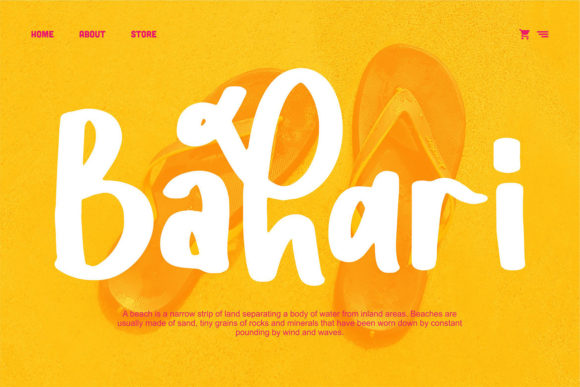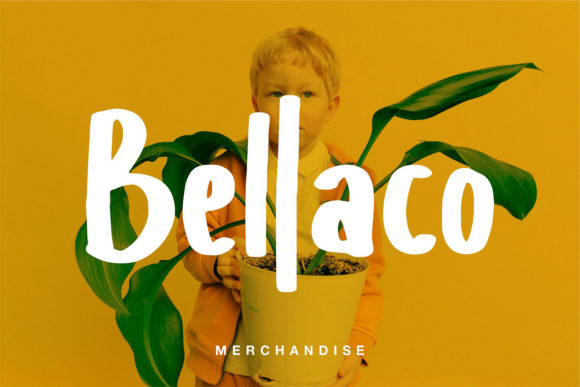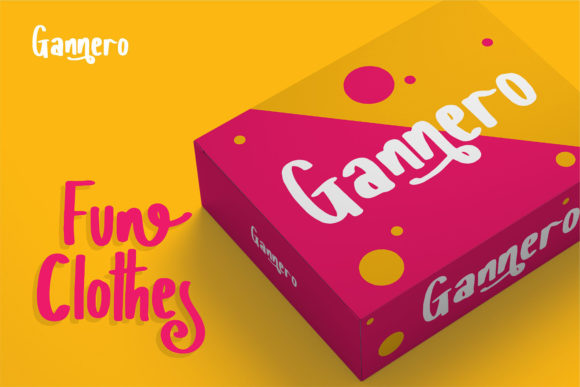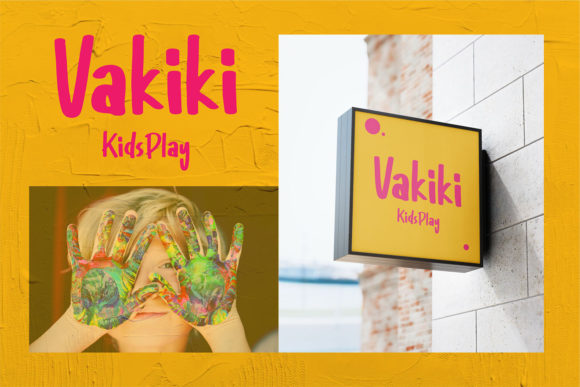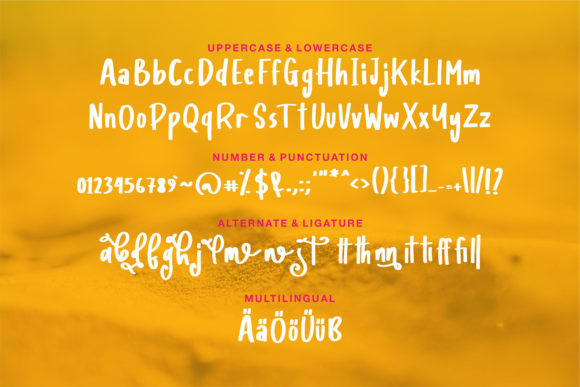
Introducing Agabil Font: The Cool and Modern Paint Brushed Display Font
Are you tired of using the same old fonts in your designs? Look no further! Agabil Font is here to revolutionize your typography with its cool and modern paint brushed display style. This font is an incredibly versatile asset that can elevate any creation, regardless of the topic or theme. In this article, we’ll dive into the features and benefits of Agabil Font, and explore how it can take your designs to the next level.
What is Agabil Font?
Agabil Font is a stunning paint brushed display font that exudes a sense of modernity and coolness. Its unique brush-stroked texture gives it a distinctive look that’s perfect for designers and crafters looking to add a touch of personality to their work. With its clean lines and fluid strokes, Agabil Font is ideal for creating eye-catching headlines, titles, and captions that demand attention.
Key Features of Agabil Font
- Unique Paint Brushed Texture: Agabil Font boasts a one-of-a-kind paint brushed texture that adds a touch of realism and sophistication to your designs.
- Modern and Cool Style: This font’s modern and cool style makes it perfect for designers and crafters looking to create fresh and trendy designs.
- Highly Versatile: Agabil Font can be used on a wide range of topics and themes, making it an incredibly asset to your fonts’ library.
- Easily Readable: Despite its unique texture, Agabil Font is easily readable, even at smaller sizes, making it perfect for use in a variety of design applications.
Benefits of Using Agabil Font
So, why should you choose Agabil Font for your next design project? Here are just a few benefits of using this amazing font:
- Adds Personality to Your Designs: Agabil Font’s unique texture and style allow you to add a touch of personality to your designs, setting them apart from the crowd.
- Elevates Your Typography: With Agabil Font, you can create stunning headlines, titles, and captions that elevate your typography and take your designs to the next level.
- Perfect for a Variety of Design Applications: From posters and flyers to social media graphics and website headers, Agabil Font is perfect for use in a wide range of design applications.
- Graphic Design: Use Agabil Font to create stunning posters, flyers, brochures, and more.
- Digital Design: Add Agabil Font to your website headers, social media graphics, and other digital designs to make them stand out.
- Crafting: Use Agabil Font to create beautiful handmade cards, scrapbook pages, and other craft projects.
In conclusion, Agabil Font is a cool and modern paint brushed display font that’s perfect for designers and crafters looking to elevate their typography and add a touch of personality to their designs. With its unique texture, modern style, and high versatility, Agabil Font is an incredibly asset to your fonts’ library. So why wait? Download Agabil Font today and take your designs to the next level!